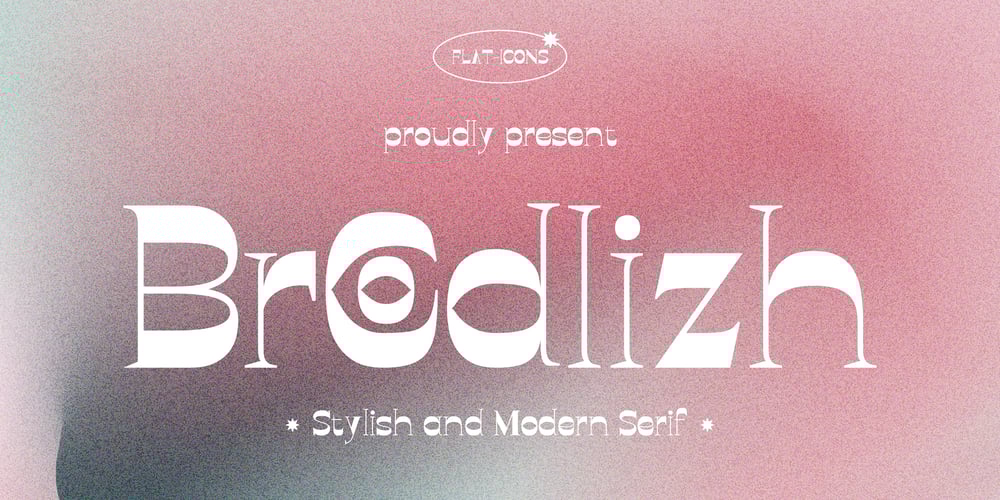
Brodlizh Font Family was designed by Heri Imanudin and published by Krafted. Brodlizh contains 1 styles and family package options. Looking for a font that combines elegance with contemporary trends? Digital or print, we’ve got a fresh font that can stand up to the task.Introducing Brodlizh – a Stylish and Modern Serif.Sharp, sophisticated, and fashionable, Brodlizh aligns perfectly with modern brands. From logos and branding to invitations and packaging, this serif will give a soul to your design.What you’ll get: Multilingual & Ligature Support Full sets of Punctuation and Numerals Compatible with: Adobe Suite Microsoft Office Keynote Pages Software Requirements: The fonts that you’ll receive in the pack are widely supported by most software. In order to get the full functionality of the selection of standard ligatures (custom-created letters) in the script font, any software that can read OpenType fonts will work. We hope you enjoy this font and that it makes your branding sparkle! Feel free to reach out to us if you’d like more information or if you have any concerns.